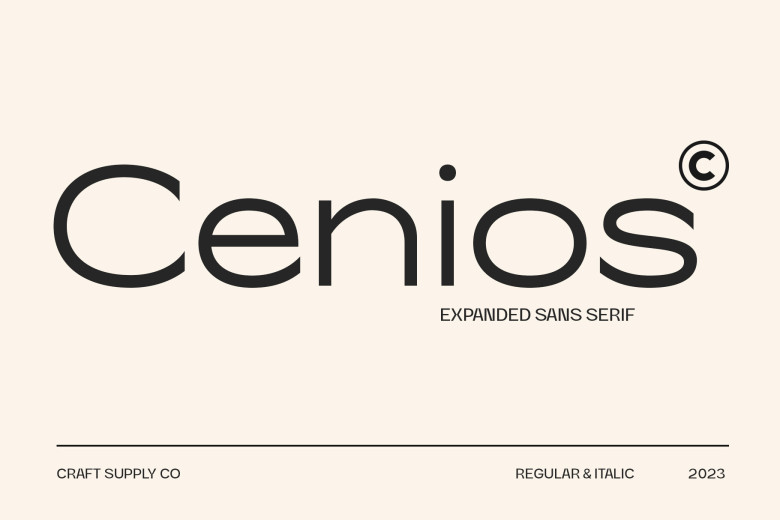
Cenios Font
Cenios is an expanded sans serif typeface, ushers in the new age of design. Cenios’ generously spaced letters and contemporary charm will lend modernity to your projects, while its wide range of possibilities make Cenios perfect for making bold statements while maximising visual impact.
Cenios Sans Serif Font